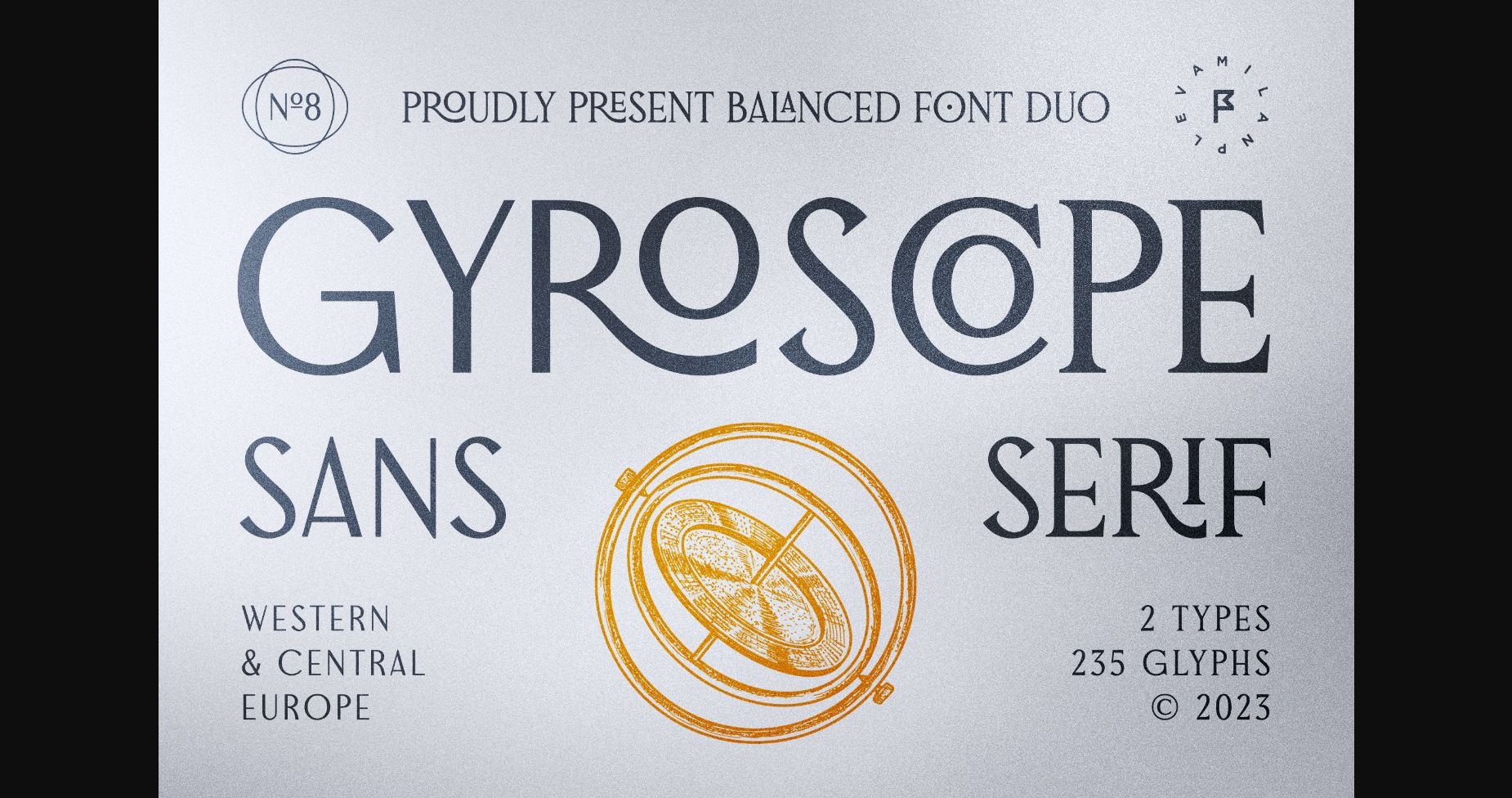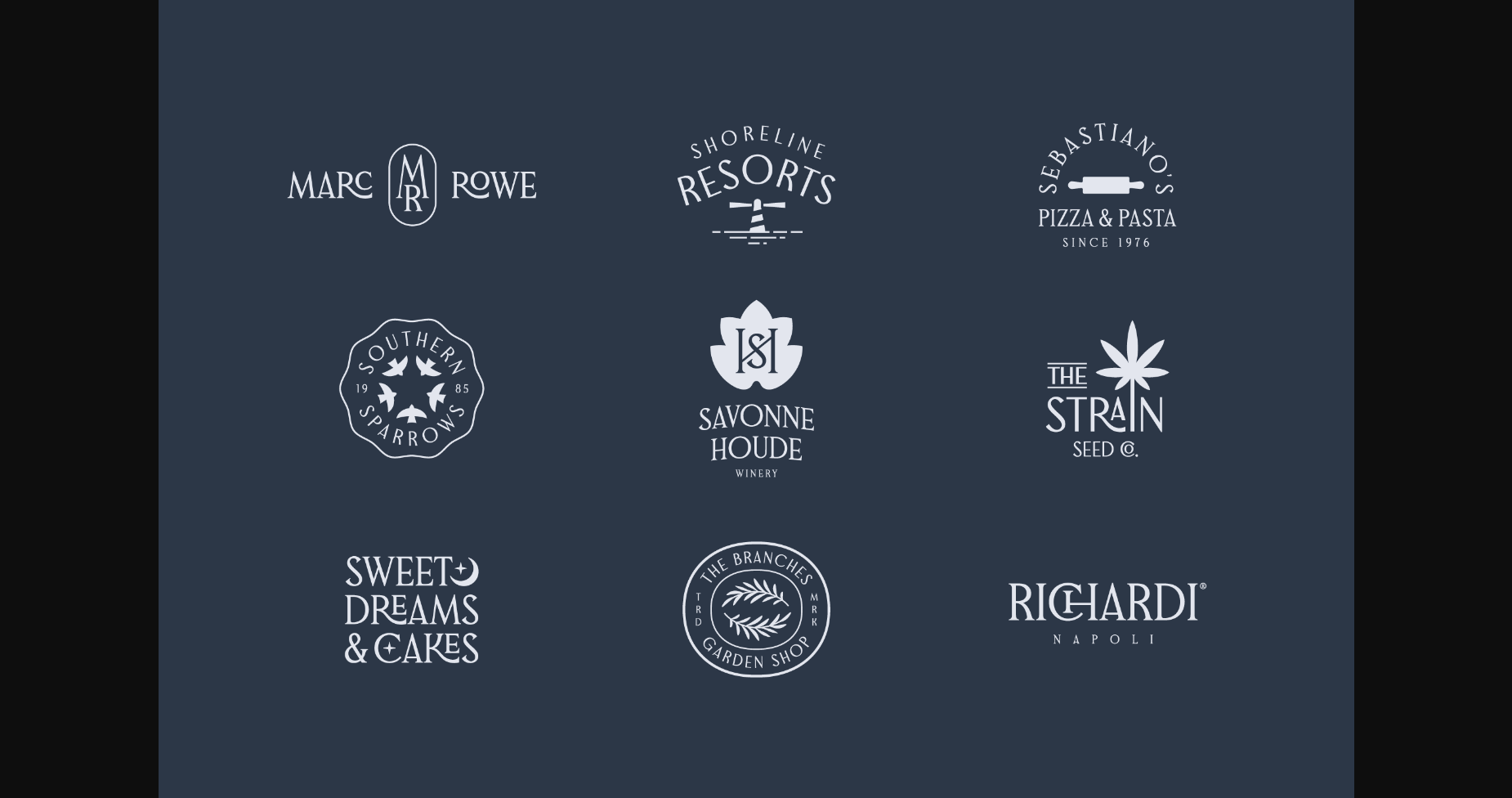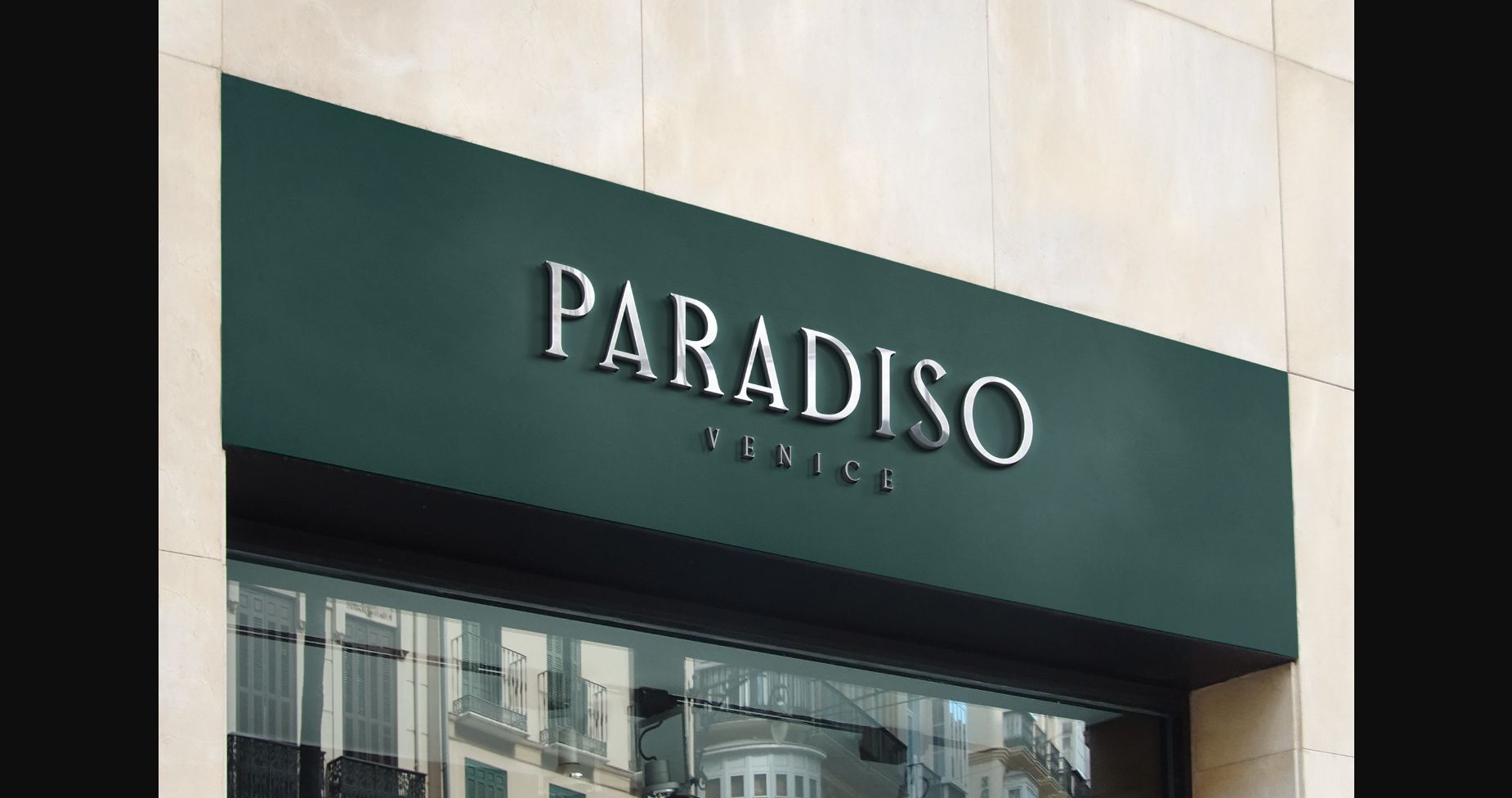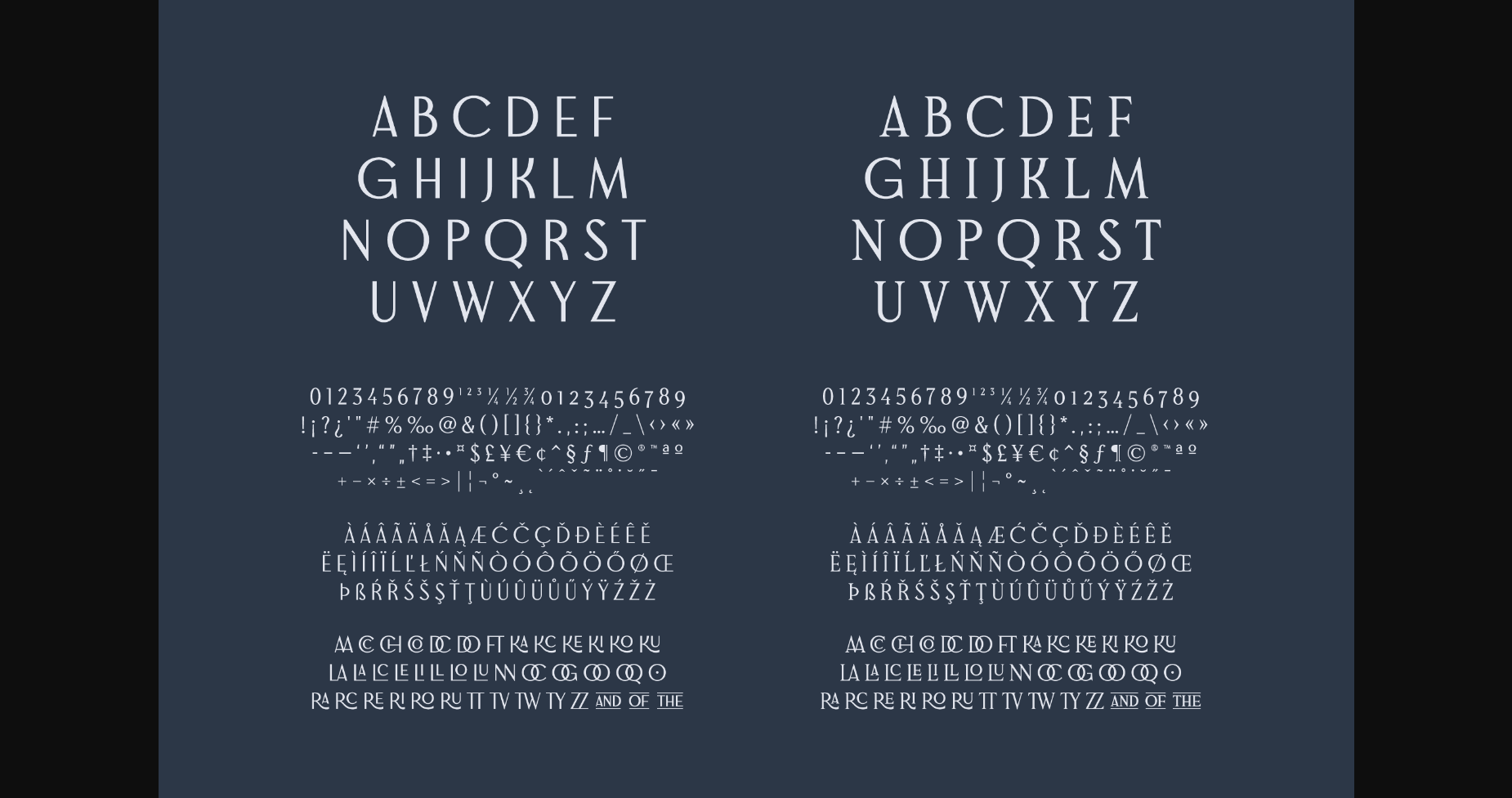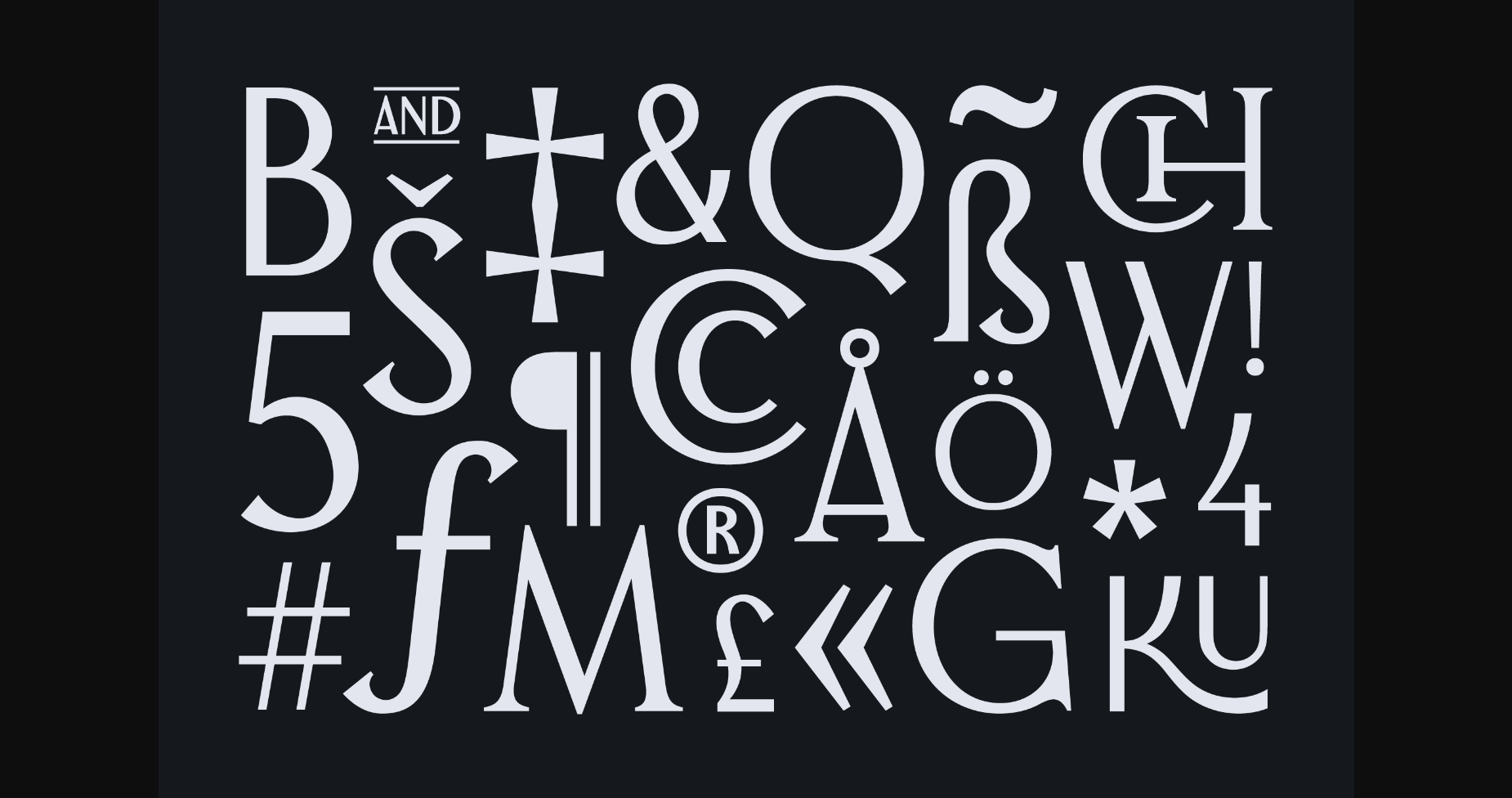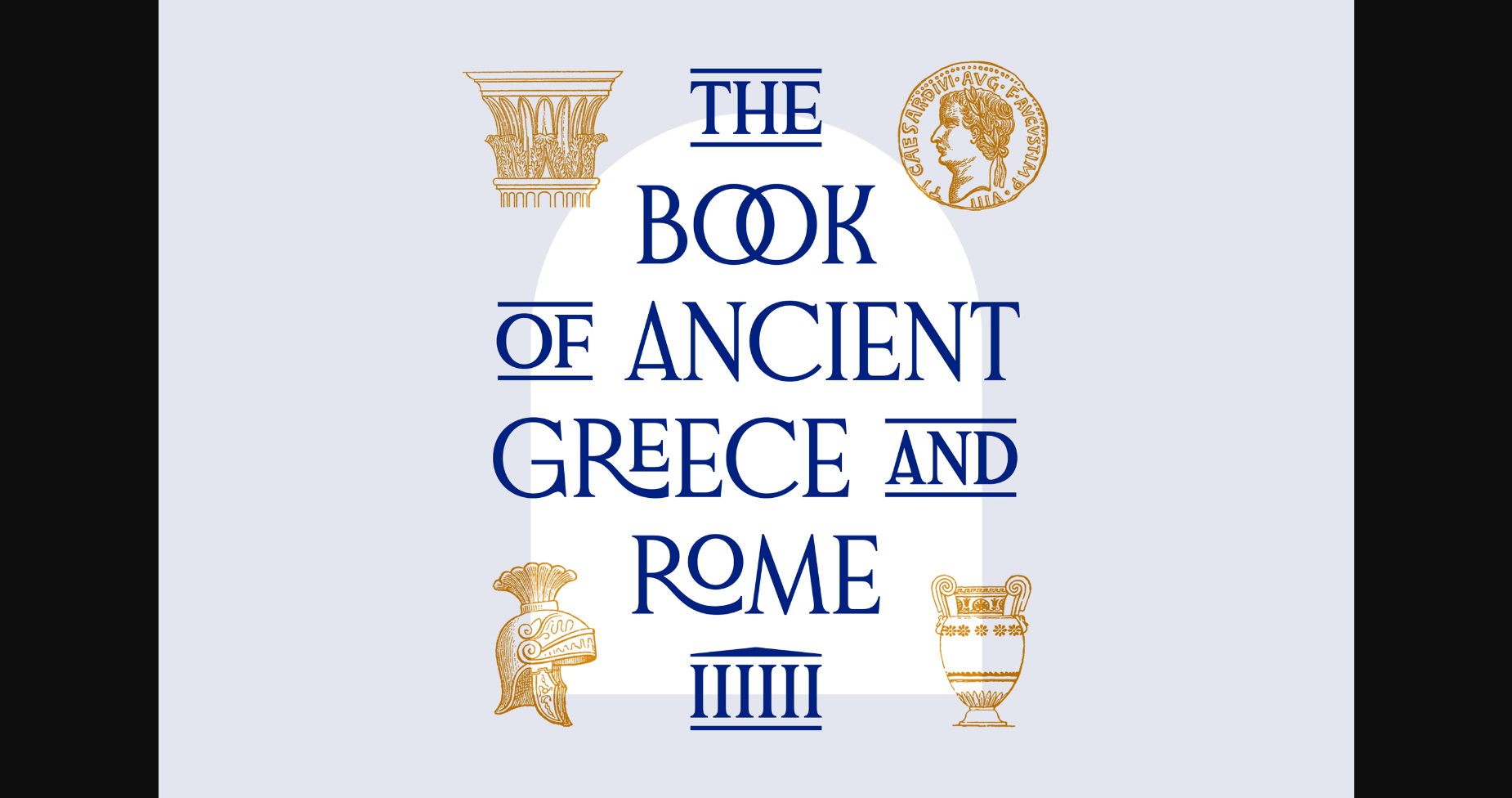
About Gyroscope Font
Gyroscope is a unique and distinctive sans-serif font that is a true standout in any design project. With its unconventional letterforms and creative design, it breaks free from the traditional mold of sans-serif fonts. Perfect for branding, advertising, and other creative applications, this font’s personality and individuality make it the perfect choice for projects that call for a unique and memorable aesthetic.